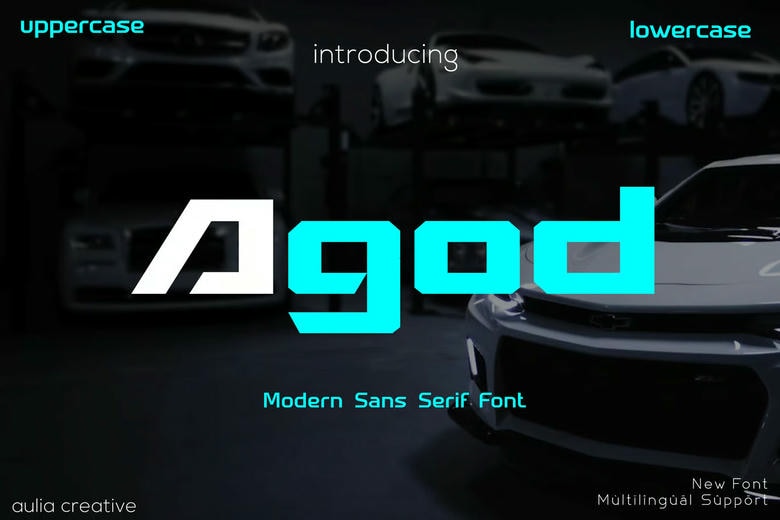
Agod is a clean, high-quality sans-serif font created by Auliacreative. You can download it for free for personal projects. It works well for elegant logos, branding, travel ads, magazines, beauty products, packaging, quotes, or adding stylish text to images.
Agod Sans Serif Font